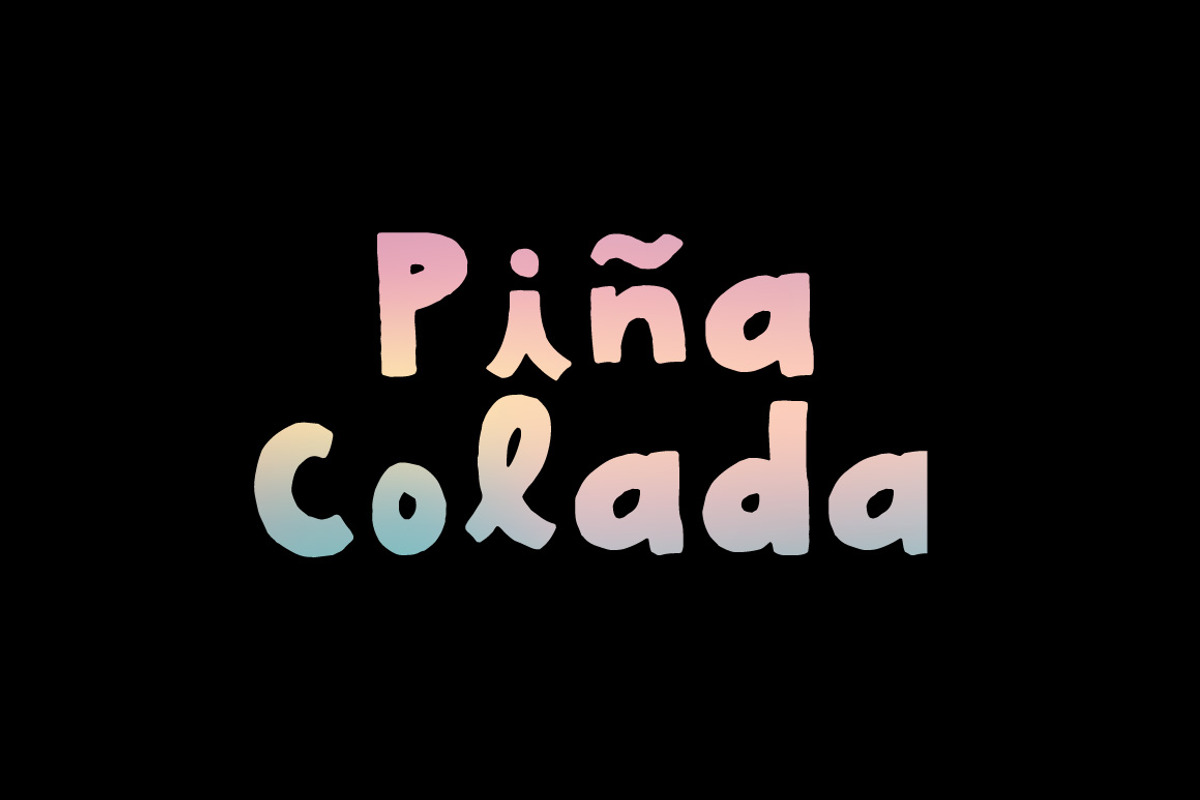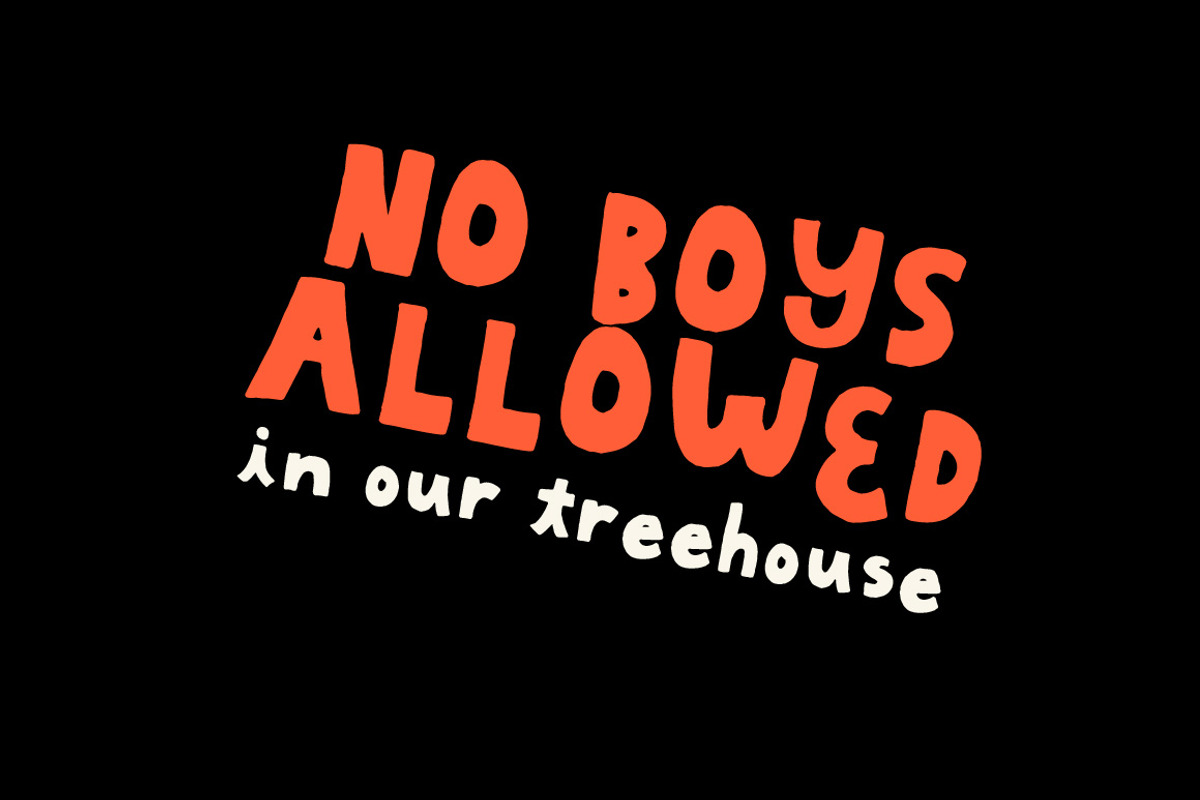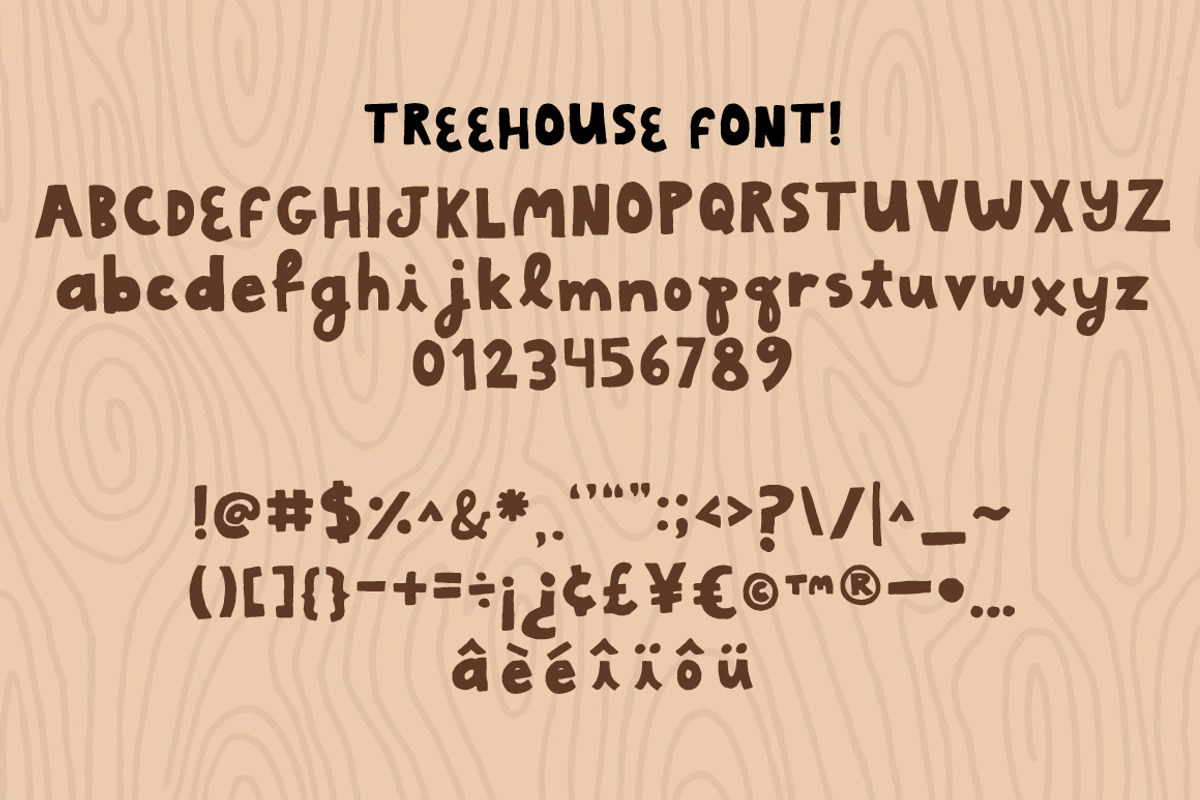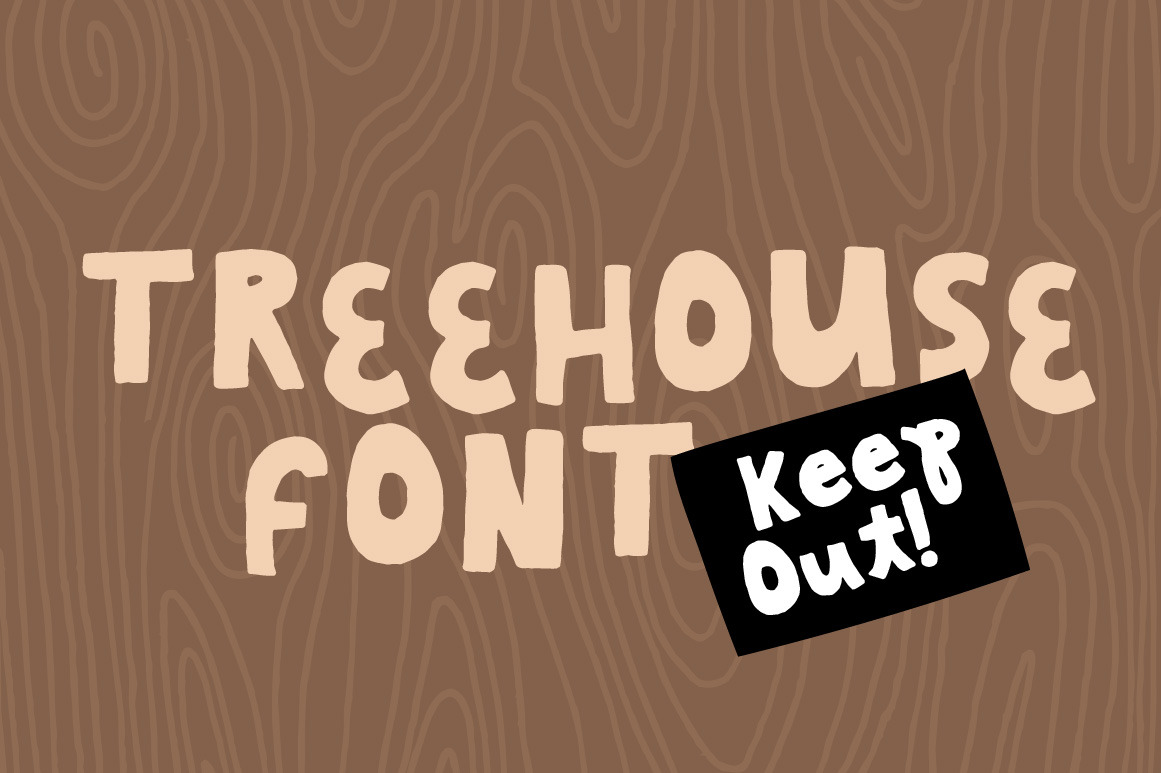
Treehouse Font
Please welcome Treehouse font! Treehouse is a handwritten fun and loopy sans serif. It has dreamy inner child vibes and I drew each character by hand for that satisfying handmade look. Perfect for playful and fun logos, titles, packaging, headlines and much more!
Includes uppercase and lowercase A-Z plus symbols, alternates, punctuation, and special characters in OTF format.